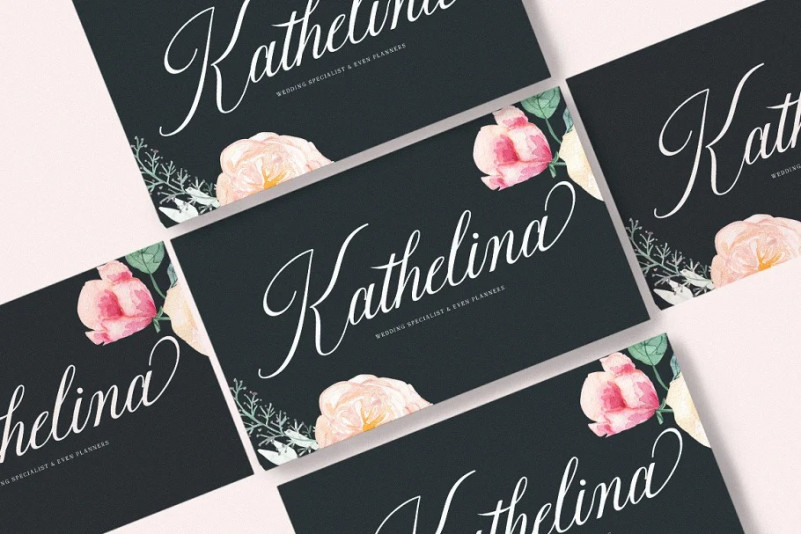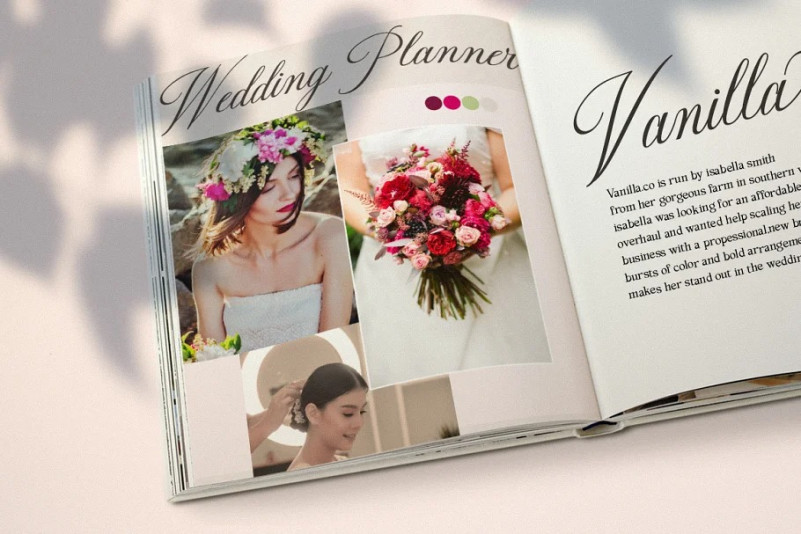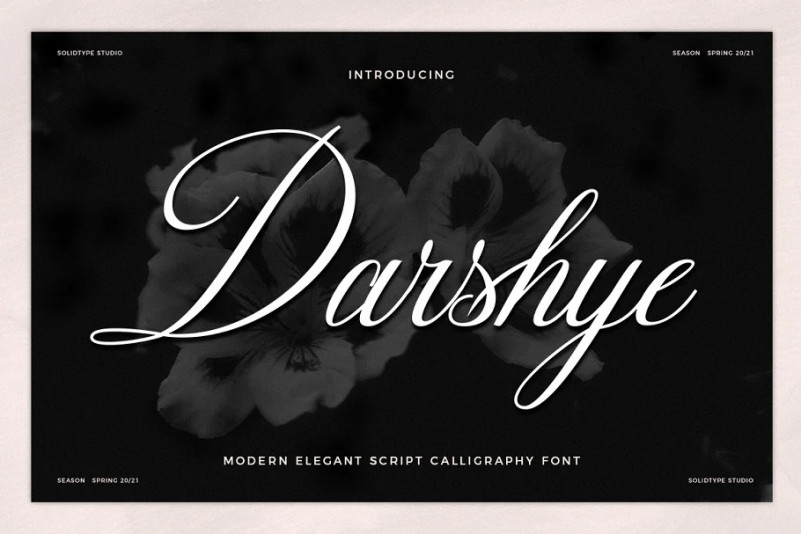
Darshye Font
Darshye Script Font is a calligraphy script font that comes with exquisite character changes, a kind of classic copper decorative script with a modern twist, designed with high detail for an elegant style.
Darshye Script is interesting because it has a soft, clean, feminine, sensual, glamorous, simple and very easy to read typeface, because there are many fancy letter joints. I also offer a number of decent stylistic alternatives for multiple letters. Classic style is very suitable to be applied in various formal forms such as invitations, labels, restaurant menus, logos, fashion, make up, stationery, novels, magazines, books, greeting / wedding cards, packaging, labels or any type of advertising purposes.